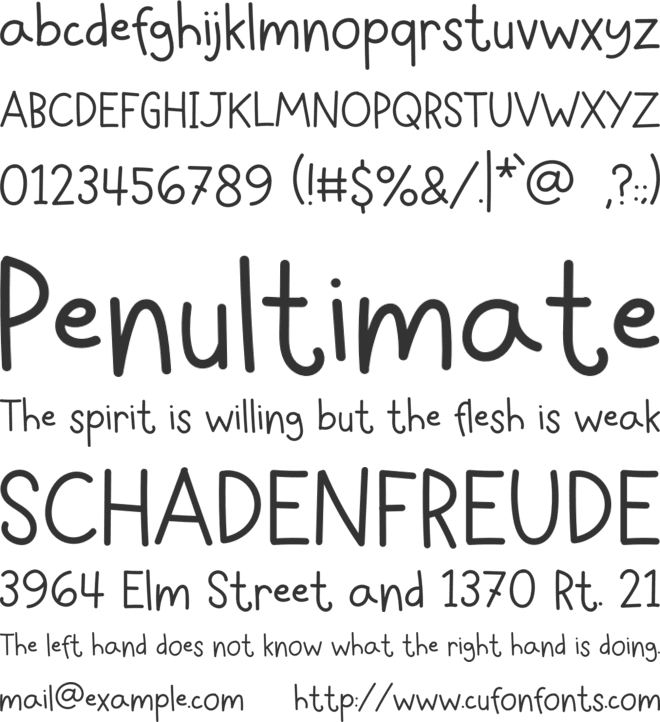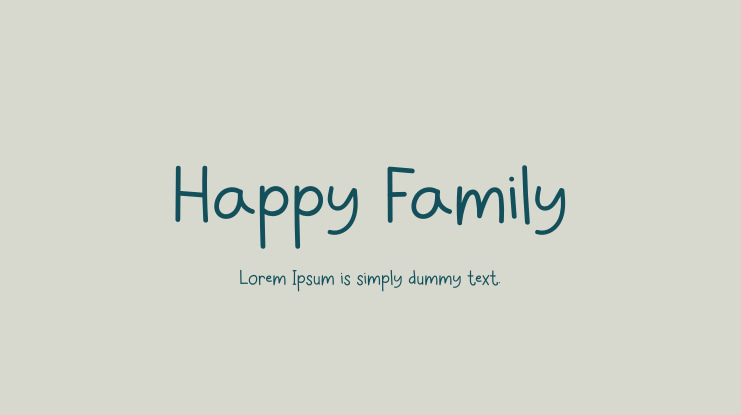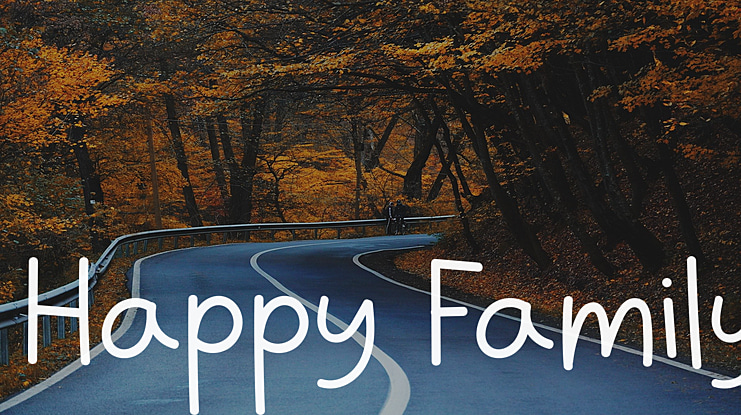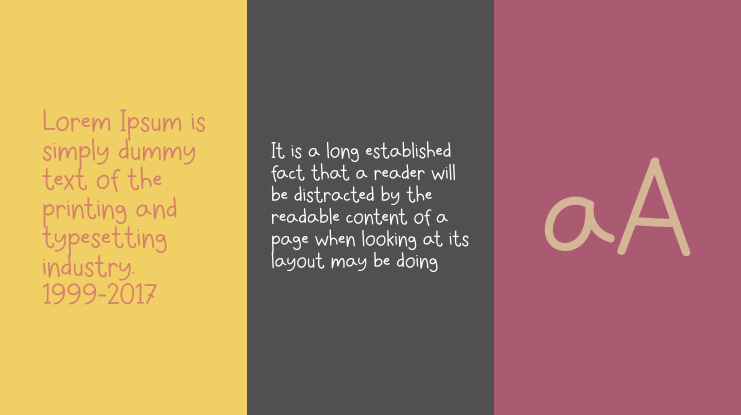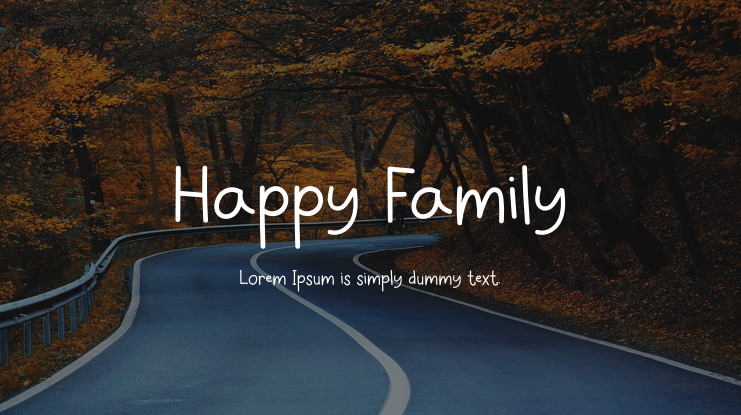
Happy Family Font
Happy Family is a cool looking and friendly handwritten font. Whether you are using it for cartoon-related designs, childrens games, quotes, titles, brand names, book covers, posters, or just any creation that requires a touch of beauty, this font is a great choice.